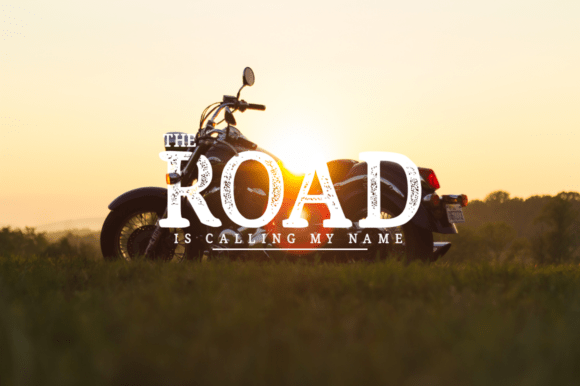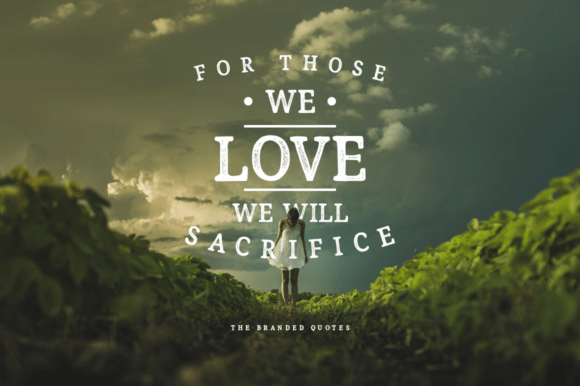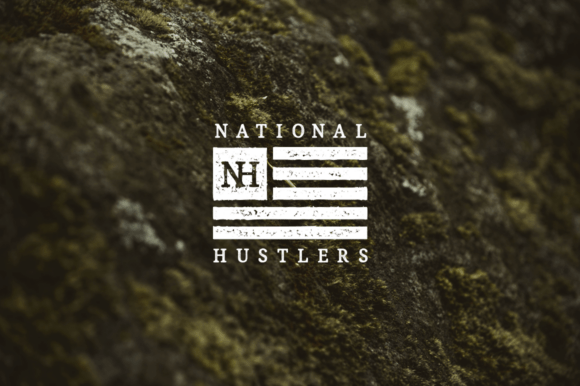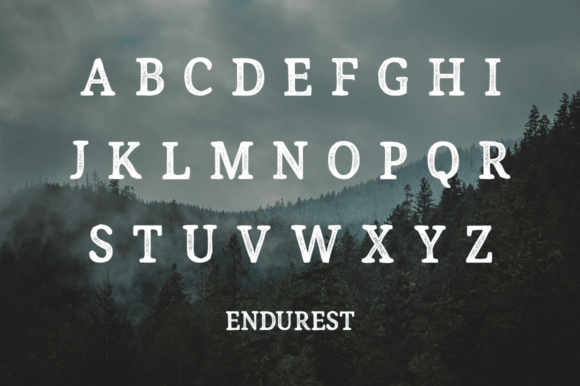
Introducing Endurest Font: A Timeless Masterpiece
In the ever-evolving world of typography, it’s not often that a font comes along that can truly stand the test of time. But Endurest Font is here to change the game. Inspired by the graphing technique of the legendary Sir Raymond DaBoll, this modern vintage font is built to withstand the challenge of trends and time.
The Inspiration Behind Endurest Font
Sir Raymond DaBoll was a pioneer in the field of typography, known for his innovative approaches to lettering and graphing. His work continues to inspire designers and crafters to this day. Endurest Font takes its cue from DaBoll’s iconic style, but with a fresh twist. By combining traditional techniques with modern tools like markers, acrylics, and digital touches, the creators of Endurest Font have crafted a truly unique and timeless typeface.
What Sets Endurest Font Apart
So, what makes Endurest Font so special? For starters, its carefully crafted design ensures balance among heights and spacing, making it perfect for a wide range of applications. Whether you’re working on a logo, a poster, or a website, Endurest Font is sure to make a lasting impression. And with its automatic size and kerning adjustments, you can focus on the creative aspects of your project, without worrying about the technical details.
Features of Endurest Font
Endurest Font is more than just a pretty face – it’s also packed with features that make it a versatile and practical choice for designers and crafters. These include:
- Capitals: Make a statement with Endurest Font’s bold and elegant capital letters.
- Numerals: From 0 to 9, Endurest Font’s numerals are the perfect addition to any design.
- Punctuation: Add a touch of sophistication to your work with Endurest Font’s range of punctuation marks.
Why Designers and Crafters Will Love Endurest Font
Endurest Font is more than just a font – it’s a tool that can help designers and crafters take their work to the next level. Here are just a few reasons why:
- Timeless appeal: Endurest Font’s classic design ensures that it will never go out of style.
- Versatility: From logos to posters, websites to magazines, Endurest Font is the perfect choice for any project.
- Ease of use: With automatic size and kerning adjustments, Endurest Font is easy to use, even for those with limited design experience.
Tips for Using Endurest Font
To get the most out of Endurest Font, here are a few tips to keep in mind:
- Experiment with different sizes: Endurest Font’s automatic size adjustments make it easy to try out different sizes and see what works best for your design.
- Play with kerning: Adjust the kerning to create a unique and eye-catching effect.
- Mix and match: Combine Endurest Font with other fonts and design elements to create a truly unique look.